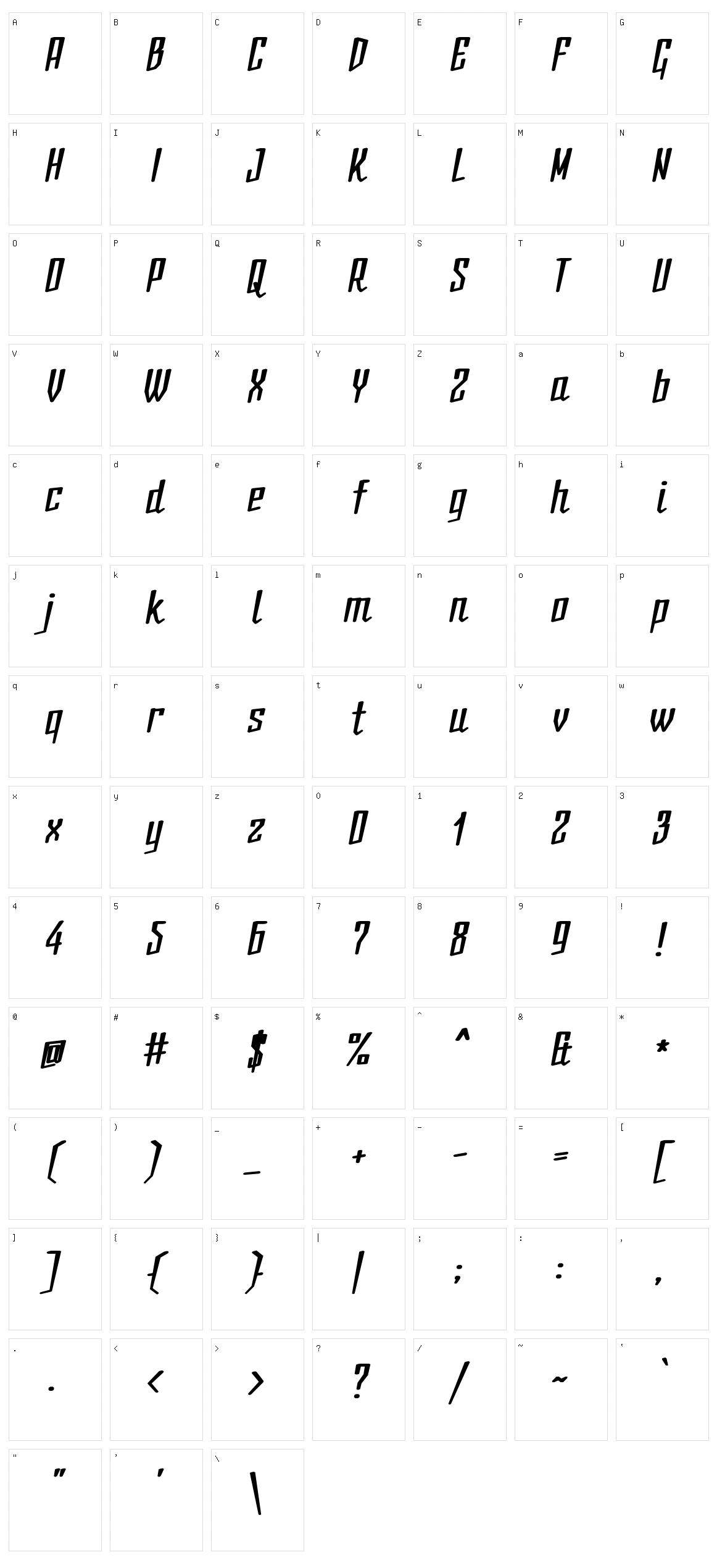
Granténa
Designed by: Vít Čondák
Dynamic font with a retro feeling intended for headers, titles and decorative parts of text.
Dynamický font s retro feelingem urèený pøedevším pro nadpisy a podobné dekorativní èásti textu.